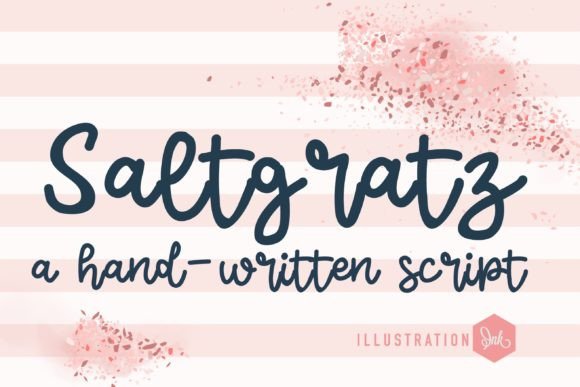
Adorn your designs with Saltgratz, an enchanting script font that dances across your digital canvas! Created by Illustration Ink, this captivating typeface embodies the essence of spontaneity and authenticity, leaving an indelible mark on your creative endeavors. Whether you're weaving captivating tales on web pages, breathing life into SVG designs, or adorning your home with a touch of elegance, Saltgratz will elevate your projects to new heights.
Saltgratz's playful nature makes it the perfect companion for branding and logos, allowing your brand's identity to shine with a unique and memorable flair. Craft stunning invitations that transport your recipients to a world of whimsy and delight, setting the stage for unforgettable gatherings. Enhance your blogs with a personal touch, infusing your words with an undeniable charm that keeps readers engaged and captivated.
Explore the endless possibilities of Saltgratz, from trendy websites that reflect your creative spirit to captivating home decor pieces that radiate warmth and personality. This versatile font seamlessly adapts to any medium, making it a go-to choice for designers and creatives seeking to make a statement.
Saltgratz possesses a delightful weight, ensuring maximum impact in both print and digital realms. Its heavier strokes command attention, inviting your audience into a world where imagination reigns supreme. Harness the power of Saltgratz to craft designs that evoke emotion, inspire action, and leave a lasting impression.
Unleash your creative potential with Saltgratz, the ultimate font for those who dare to dream beyond the ordinary. Its carefully crafted characters will transform your designs into masterpieces, leaving your audience mesmerized. Embark on a creative journey where boundaries are pushed, and originality knows no bounds. Embrace Saltgratz and unlock the gateway to truly remarkable designs!